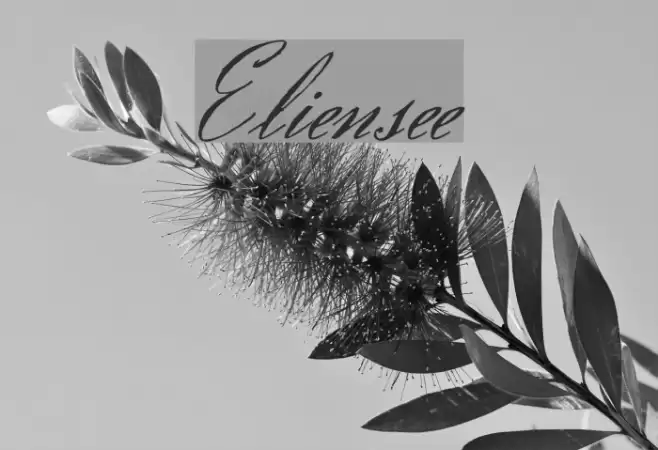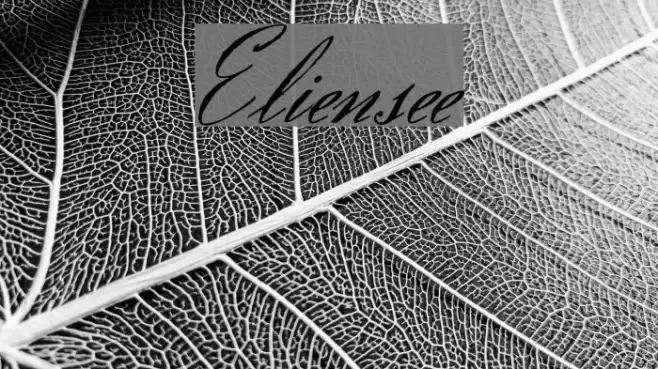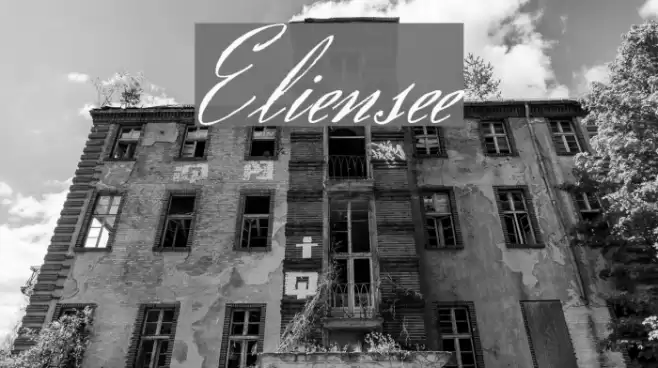
Eliensee Font
Eliensee Description
This elegant script font features a flowing, cursive style with high contrast between thick and thin strokes, giving it a sophisticated and graceful appearance. The characters are intricately designed with smooth curves and delicate flourishes, creating a sense of movement and fluidity. The uppercase letters are particularly ornate, with extended loops and swashes that add a touch of drama. The lowercase letters maintain a consistent style, enhancing readability while retaining the font's decorative nature. The spacing between characters is tight, which contributes to the cohesive look of the text. This font is ideal for projects that require a touch of elegance and refinement.
An elegant script font with high contrast and flowing, cursive style from Uncategorized fonts.
- Proposed Projects: Wedding invitations, luxury branding, elegant stationery, and high-end product packaging.
- Character Spacing: Tight
- Contrast: High
- Overall Style: Elegant, Decorative
- Use Case: Logos, Invitations, Decorative text